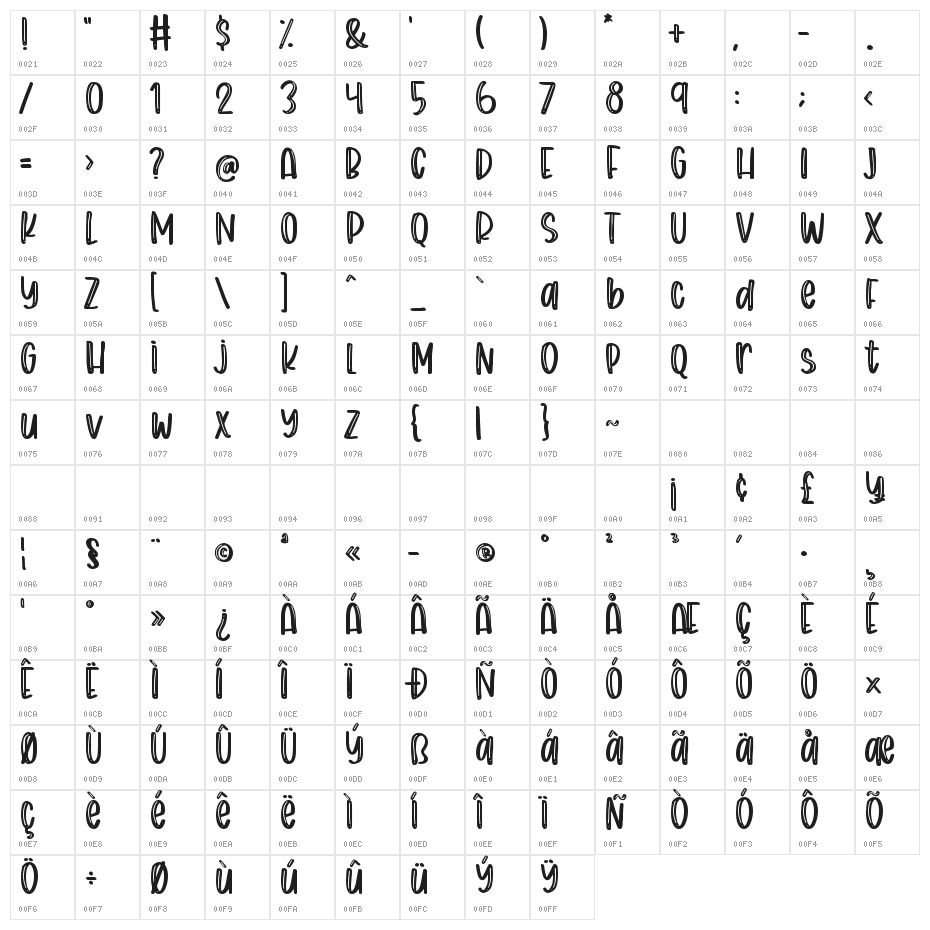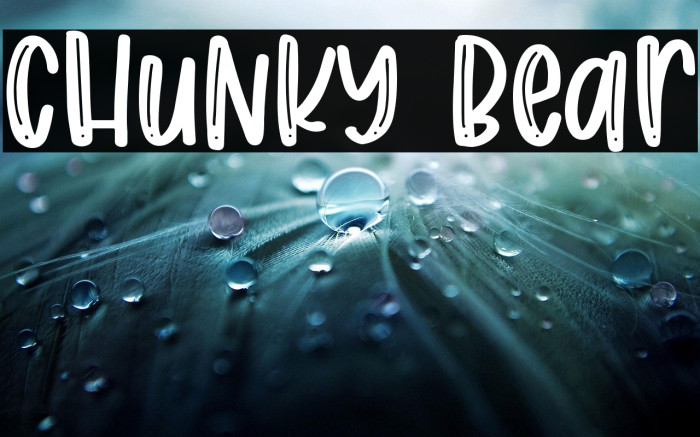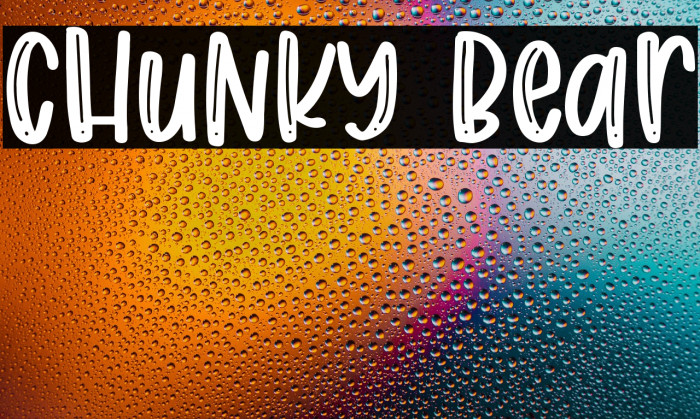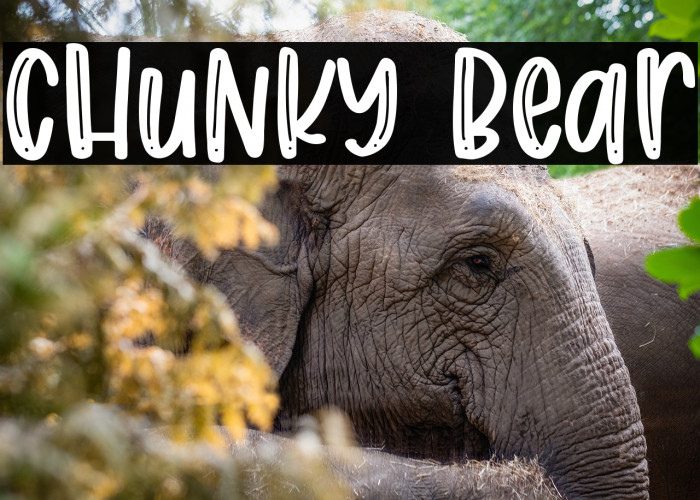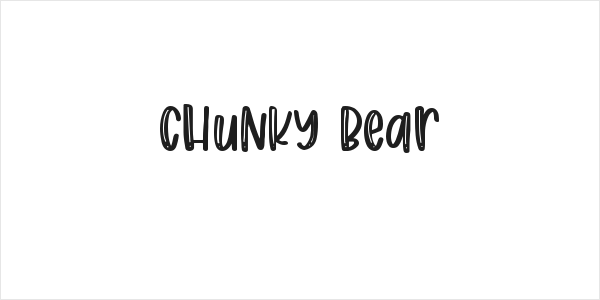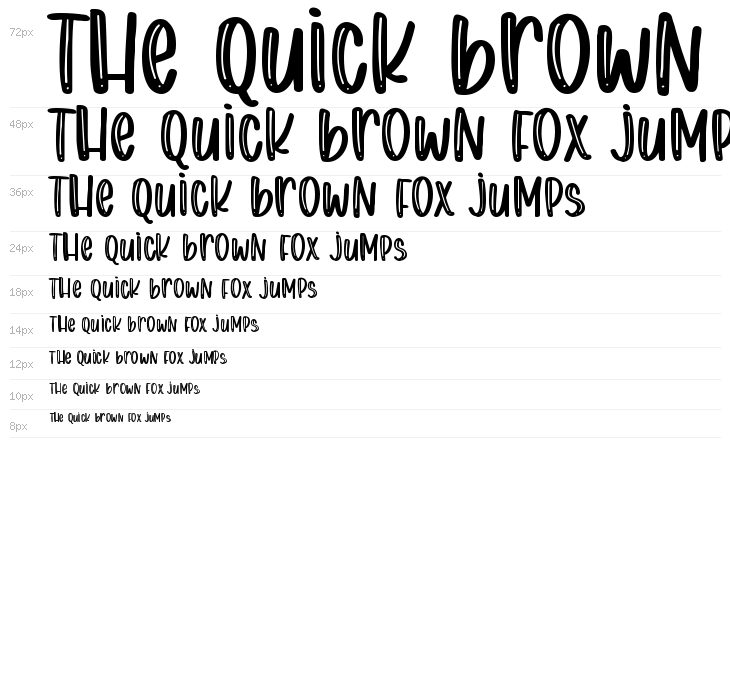
Chunky Bear Font
Chunky Bear Description
This playful and bold font features thick, rounded strokes that give it a friendly and approachable appearance. The letters are slightly elongated with a consistent width, creating a uniform look across both uppercase and lowercase characters. The numbers and special characters maintain the same whimsical style, making them easily readable while adding a touch of fun. The font's design is reminiscent of hand-drawn lettering, with smooth curves and a casual feel that makes it perfect for informal and creative projects. Its boldness ensures it stands out, while the rounded edges soften its overall impact.
| Proposed Projects | Ideal for children's books, playful branding, greeting cards, and social media graphics. |